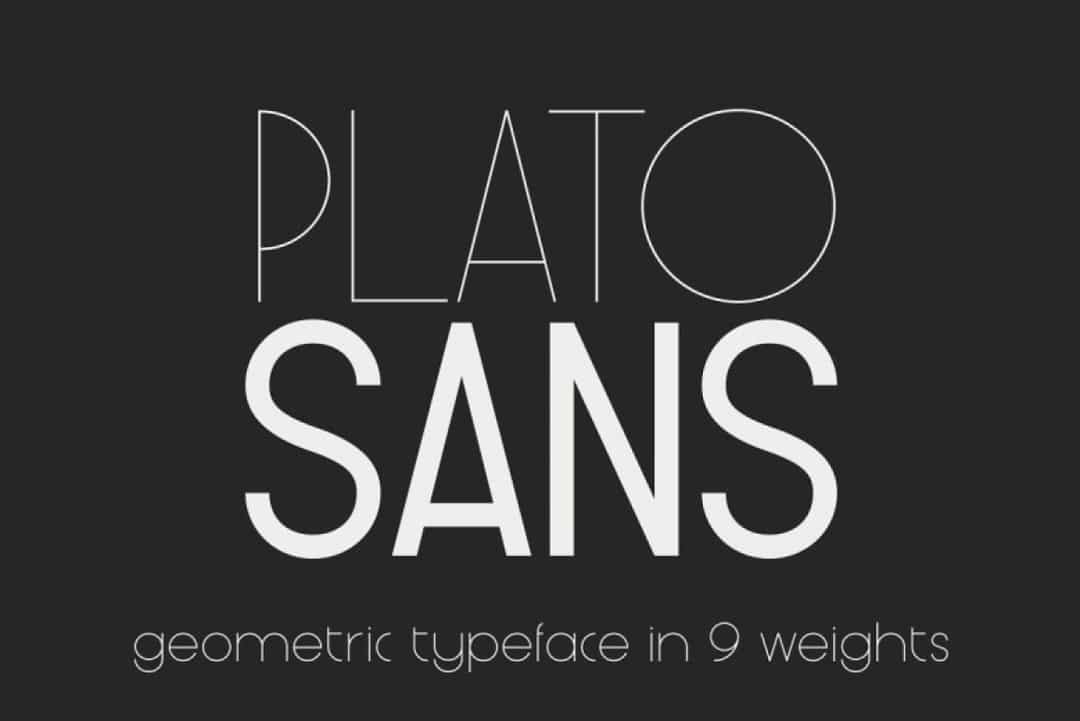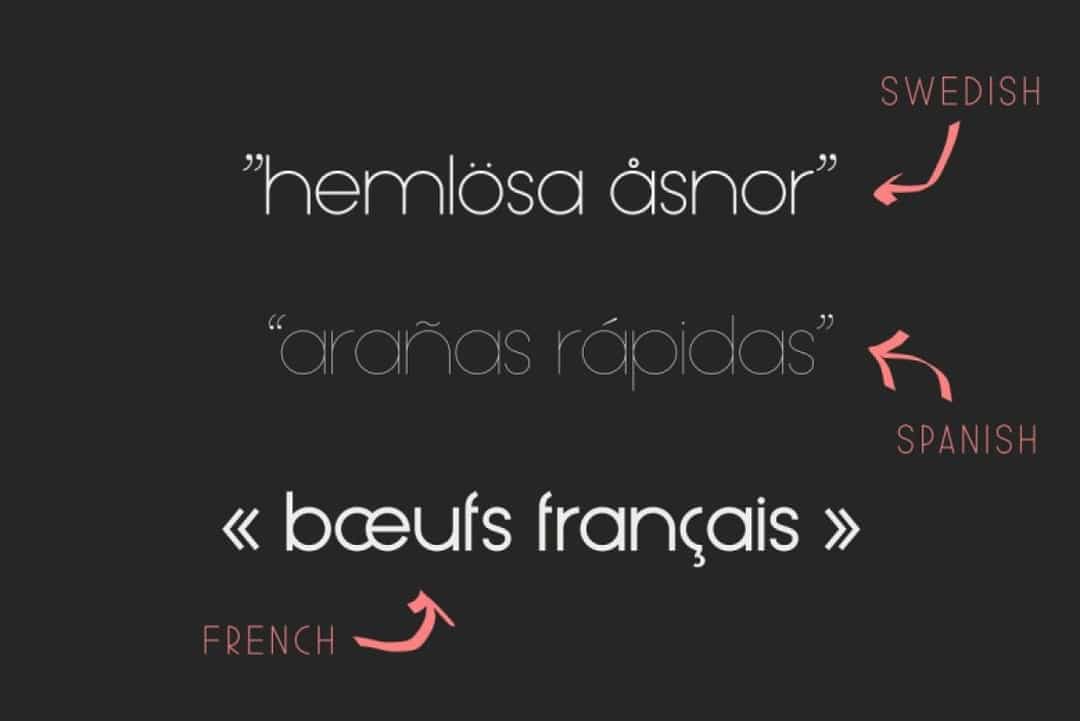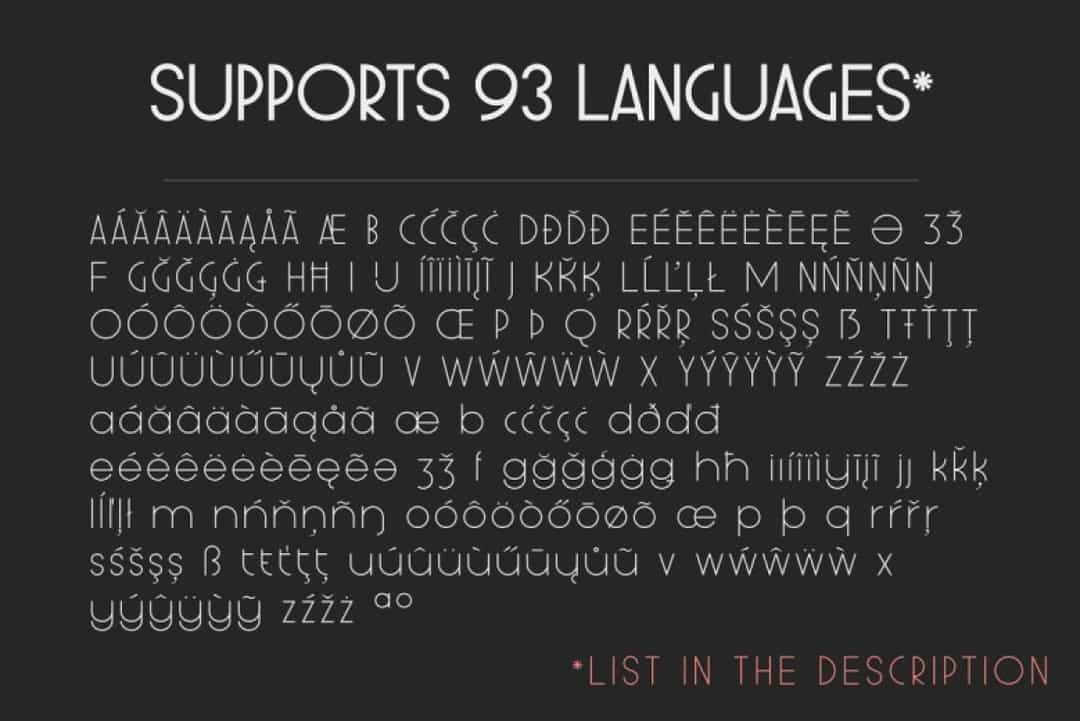
Plato Sans is a stunning and minimalist typeface designed for display usage, such as book and magazine covers, posters, branding signage and short text. This font comes as an opentype font file (.otf format), packaged into a zip archive containing nine weight files for easy deployment.